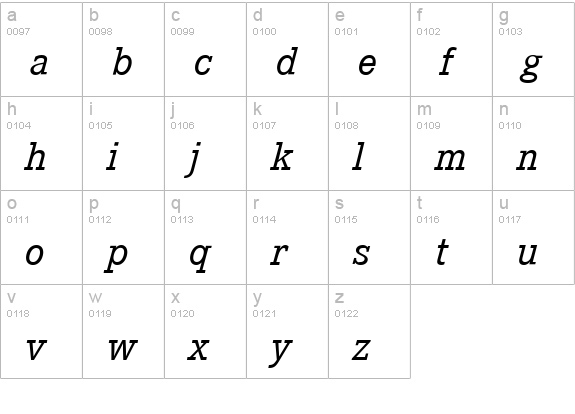
Corporate E Italic is a distinctive, italic variant in the Corporate typeface family \xE2\x80\x94 well suited to design and typography projects.
Introducing Corporate E Italic font - a sleek and modern typeface designed for corporate and professional use. Its elegant italic style exudes sophistication and refinement, making it the perfect choice for business presentations, branding materials, and company websites. The clean lines and subtle curves of Corporate E Italic lend a contemporary touch to any project, while still maintaining a sense of professionalism. And the best part? Corporate E Italic font is completely free to download at FontsMarket.com! This means you can elevate your design projects with this premium font without any cost. Don't miss out on this opportunity to enhance your work with the sleek and stylish Corporate E Italic font, available for free download now.